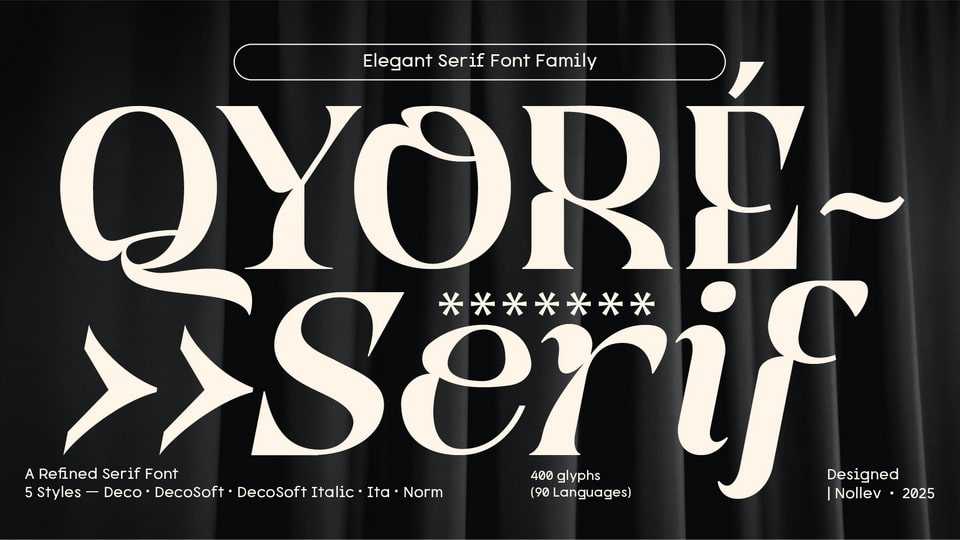
Qyore Serif Font › Fontesk
Download Qyore Serif font, a modern high-contrast serif typeface that blends classic elegance with bold, contemporary flair. Designed with sharp contrast and elegant curves in selected styles, Qyore brings sophistication to any project without compromising readability.
Designer: Akhmad Hidayat